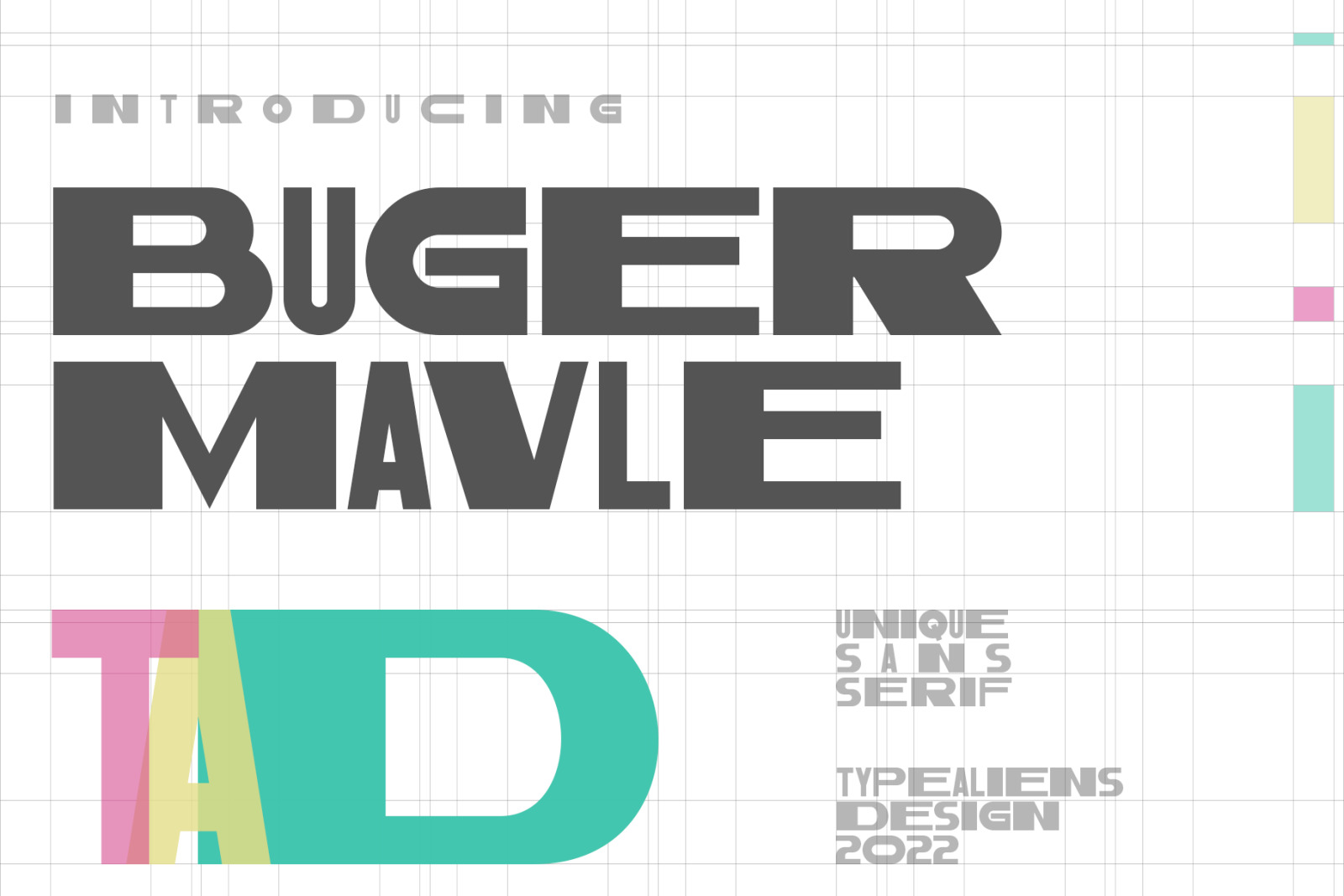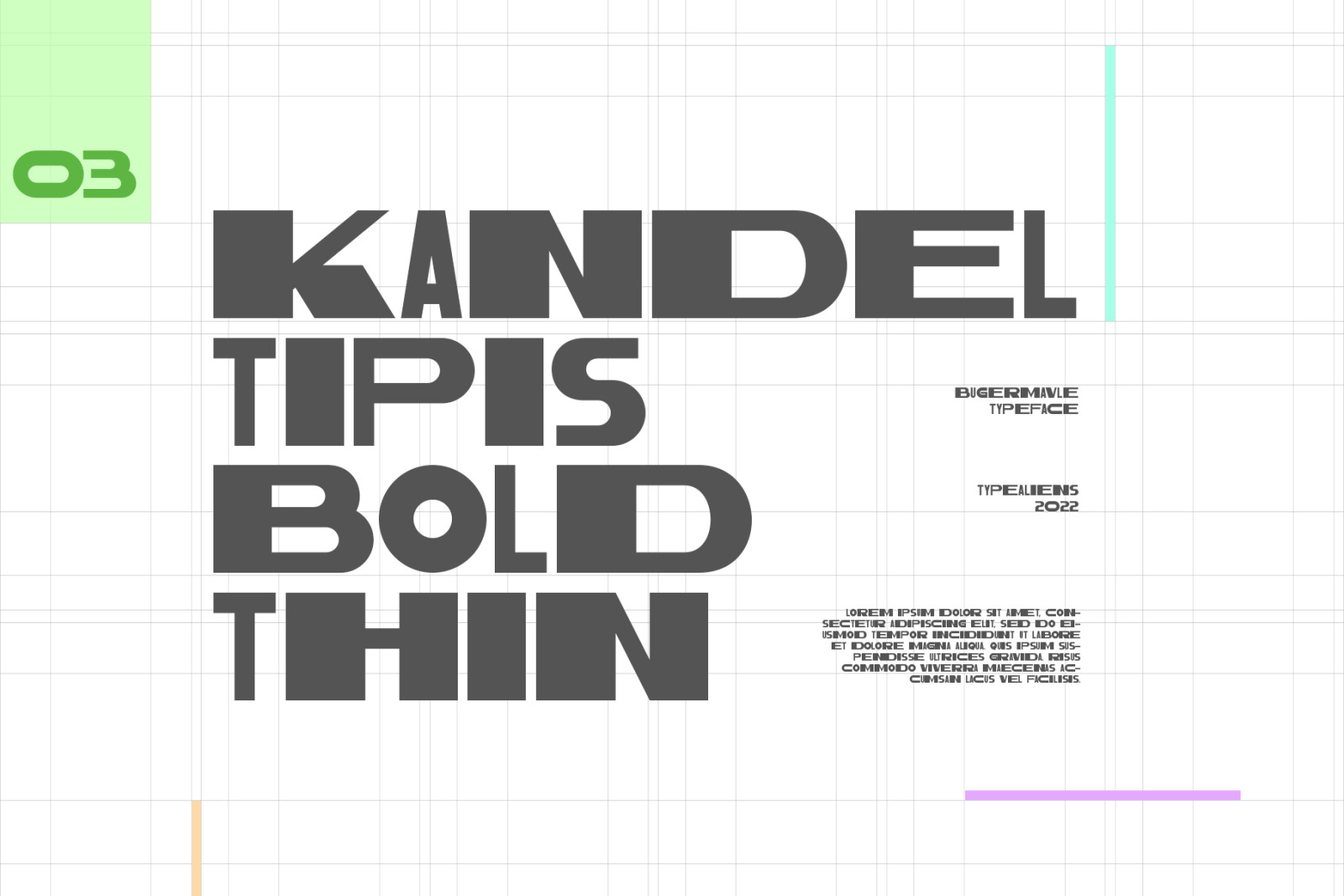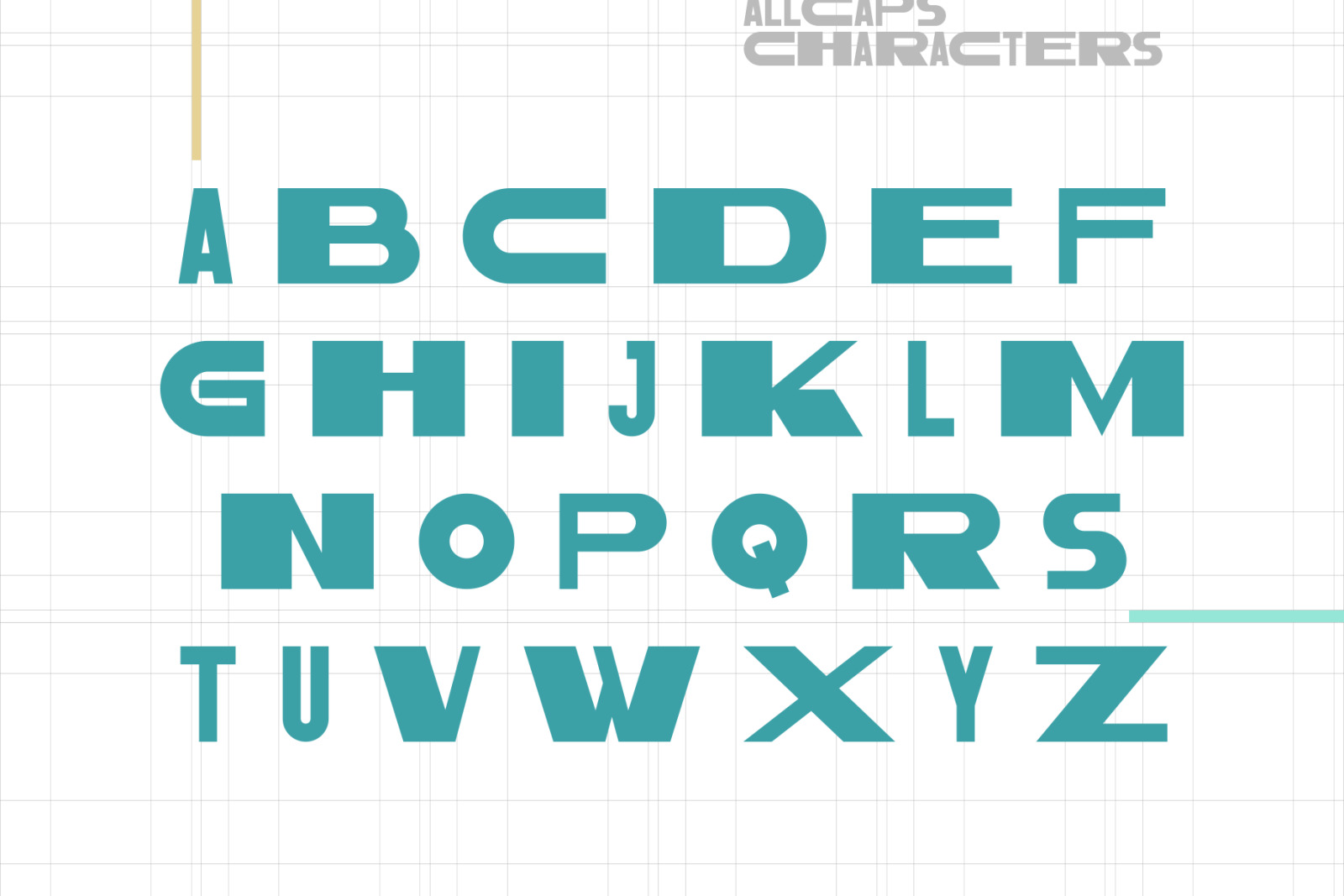
Bugermavle Font
BUGERMAVLE is a unique font with bold and thin in one font. Basically, it is a modified sans serif font, with some letters being thick and some being thin, resulting in a unique blend in one sentence. It is suitable for modern and clean designs. To support the design of a magazine or website cover will also be very suitable. This font is an allcaps font.